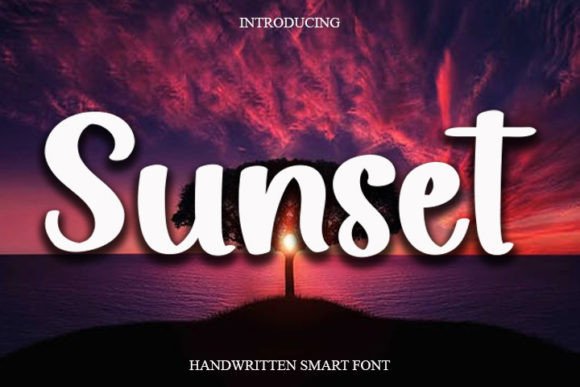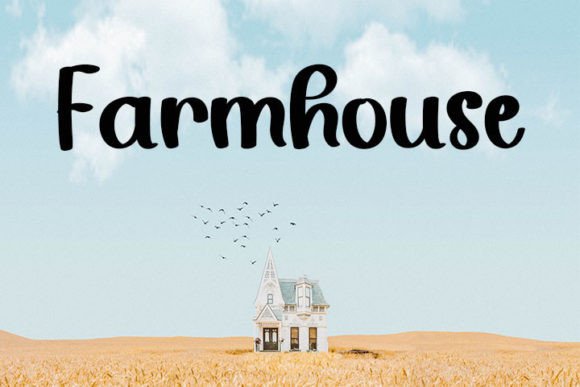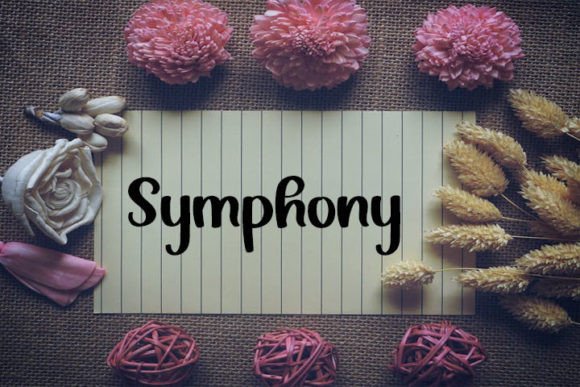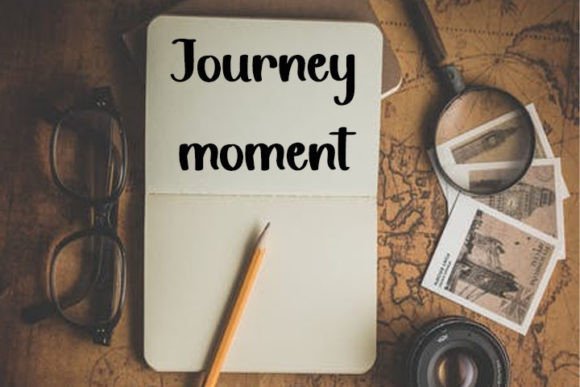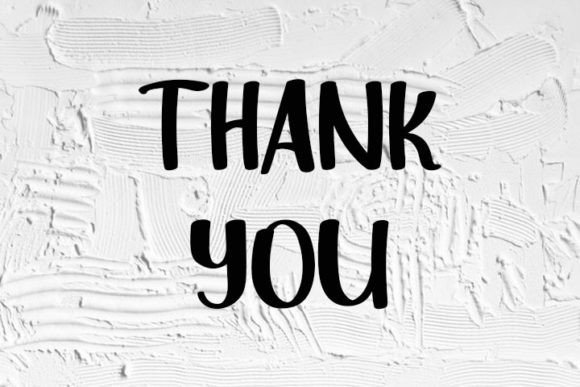
About Sunset Font
Sunset is a magical handwritten font that brings a fresh blend of elegance and creativity to your projects. Designed to feel clean yet a little bit quirky, this font stands out as a perfect choice for anyone who wants their designs to look both stylish and approachable. Whether you’re working on a professional logo, branding materials, or DIY crafts, Sunset will add a unique flair that feels warm and inviting.
Every letter in Sunset has been crafted with care. The smooth strokes create a natural flow, while the subtle irregularities give your text a touch of personality. This balance between polished and playful makes Sunset an ideal font for a wide variety of uses.
Ideal for Logos and Branding
Sunset shines brightest in branding projects. Its friendly yet professional feel is perfect for businesses that want to look approachable without sacrificing credibility. Use Sunset to design:
Logos: Give your brand a signature look that feels authentic.
Business Cards: Make a memorable first impression.
Packaging: Add a handcrafted vibe to your products.
Signage: Ensure your shop or booth stands out.
Brand Style Guides: Keep your visuals consistent and charming.
Great for Social Media and Digital Design
If you’re creating content for Instagram, Pinterest, Facebook, or other platforms, Sunset will help your posts look polished and on-brand. Here are a few ways to use Sunset online:
Social Media Quotes: Make inspirational posts that people want to share.
Story Templates: Design beautiful and consistent stories.
Blog Graphics: Create headers and buttons with a personal touch.
Pinterest Pins: Craft eye-catching designs to grow your audience.
Its clean and legible letters make sure your message is always easy to read.
Perfect for Crafting and DIY Projects
Sunset isn’t just for professional design work. It’s also an excellent font for your creative hobbies. You can use it in:
Greeting Cards: Make heartfelt cards for birthdays, weddings, and holidays.
Scrapbooking: Add captions and titles that look handmade.
T-Shirt Designs: Bring personality to apparel.
Cricut and Silhouette Projects: Cut smooth, clean letters with ease.
Wall Art: Create prints that brighten up any room.
With Sunset, your crafts will feel extra special.
Why Choose Sunset?
Here’s why designers and crafters love this font:
Clean and Quirky: Balances elegance with a playful edge.
Highly Legible: Easy to read, even in small sizes.
Versatile: Works for business, social media, and personal projects.
Unique Personality: Adds warmth and authenticity to any design.
Timeless Appeal: Modern yet classic enough to stay relevant.
Creative Ideas for Sunset
Need inspiration? Try these ideas:
Combine Sunset with a bold sans-serif font for contrast.
Use bright colors to emphasize its quirky character.
Create logo variations with the alternates and swashes.
Pair it with watercolor illustrations for a handcrafted feel.